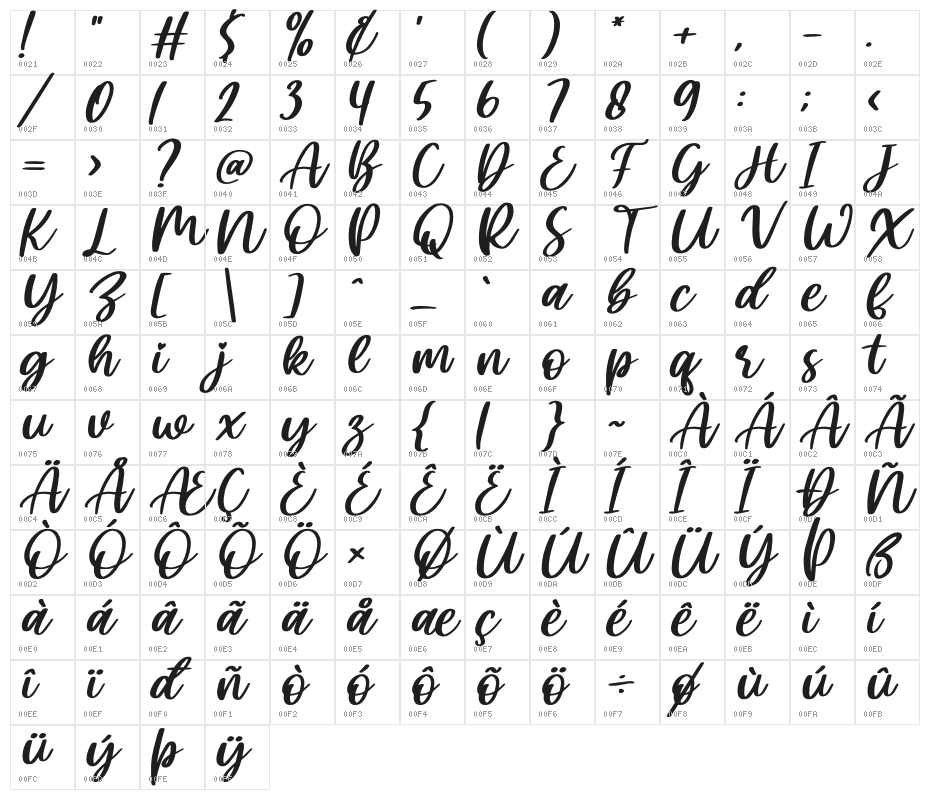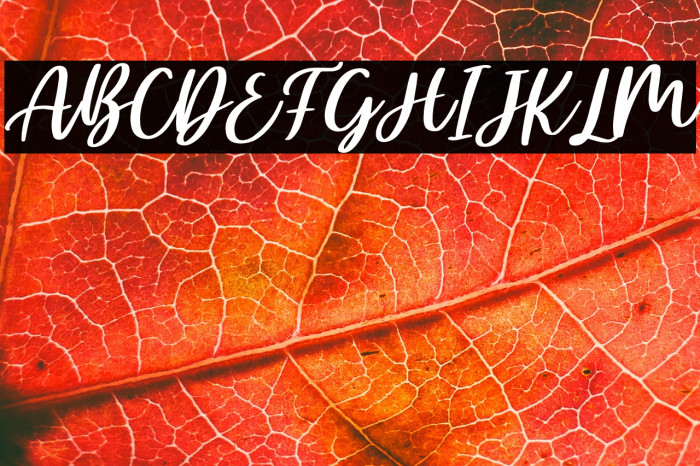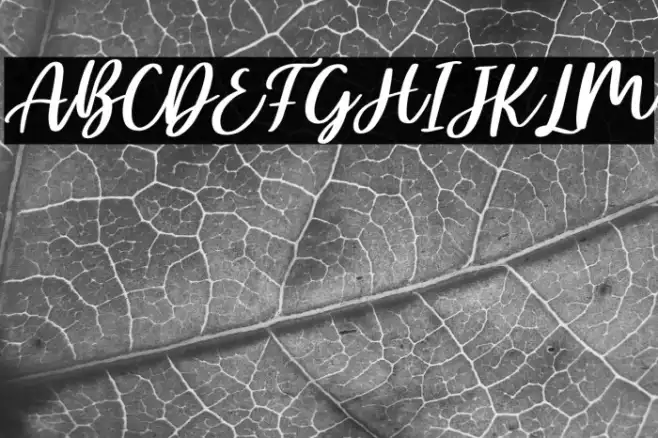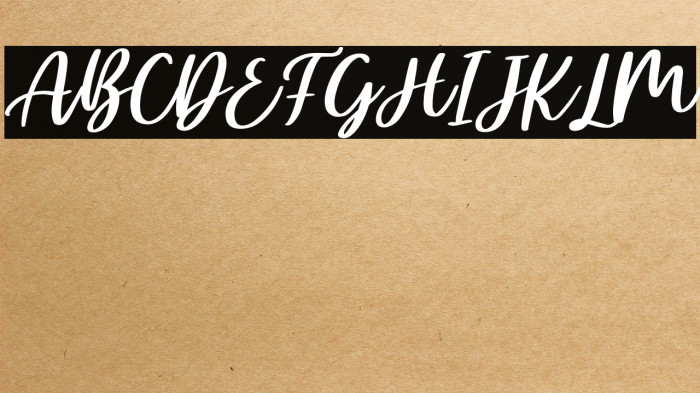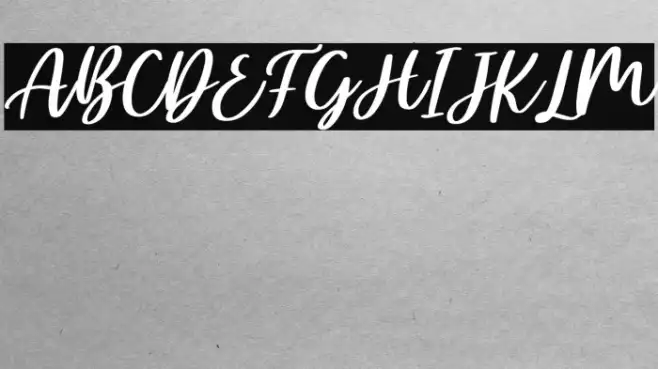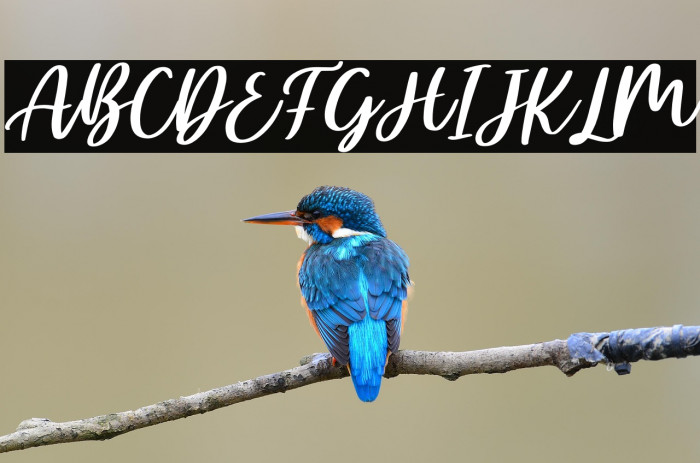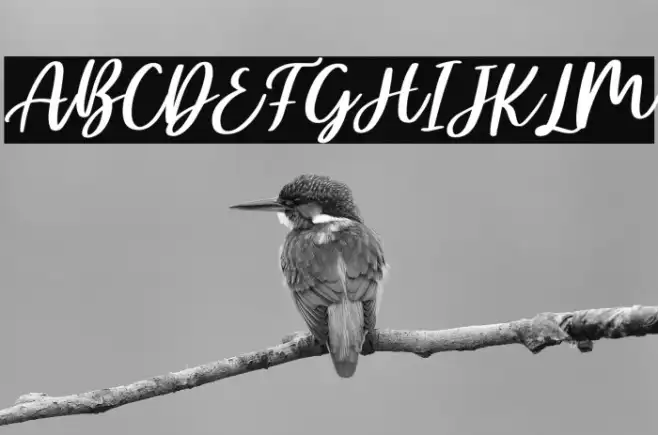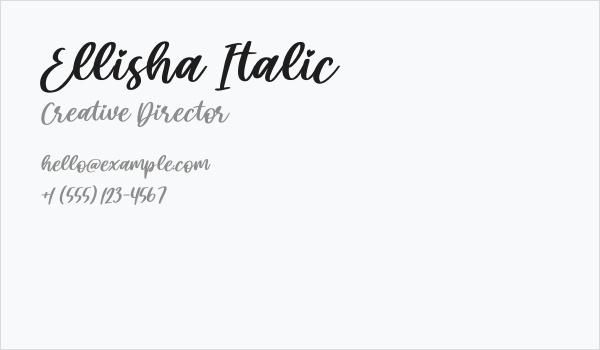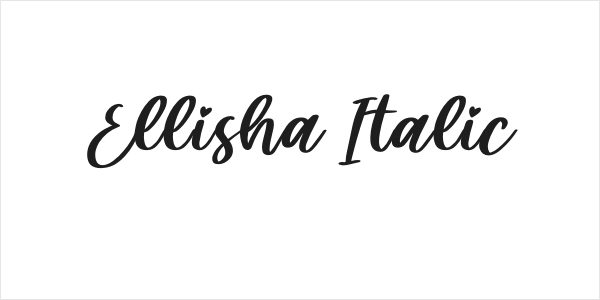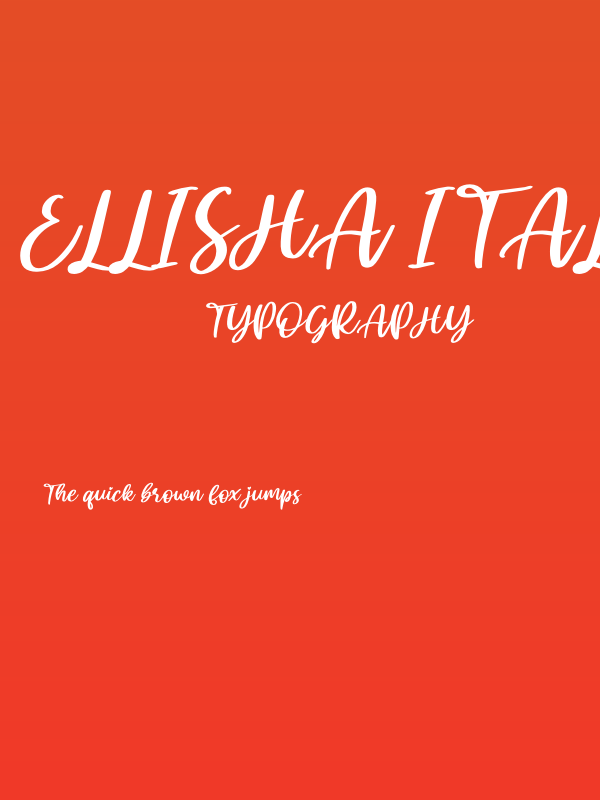
Ellisha Italic Font
Ellisha Italic Description
This font exhibits a flowing, cursive style with a modern flair. The letters are interconnected, creating a seamless and elegant appearance. The uppercase characters are bold and prominent, while the lowercase letters maintain a consistent flow, enhancing readability. The numerals and special characters are designed to match the overall script style, ensuring uniformity across all characters. The font's italic nature adds a dynamic and sophisticated touch, making it suitable for various creative applications.
| Proposed Projects | Ideal for wedding invitations, greeting cards, branding projects, and elegant product packaging. |